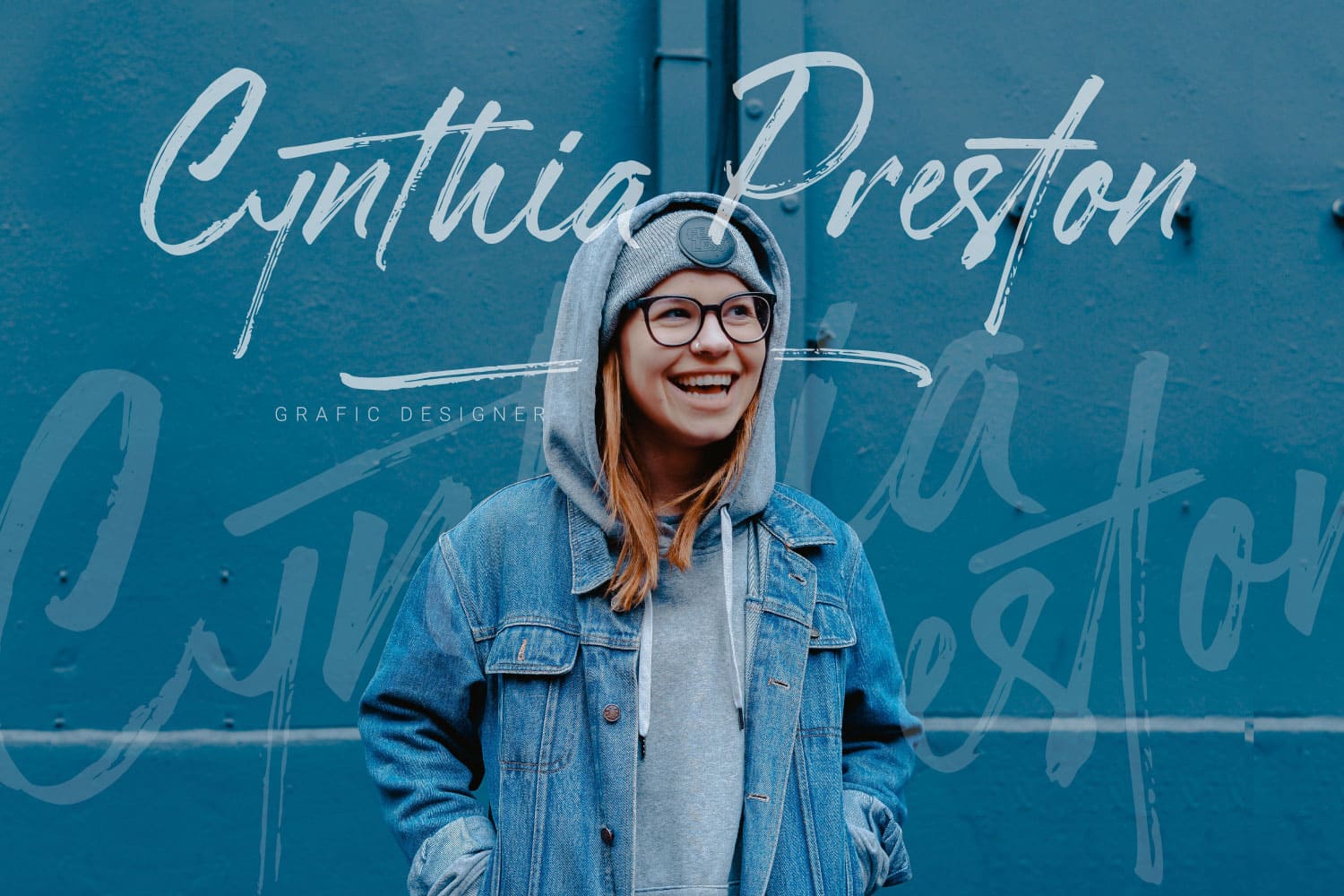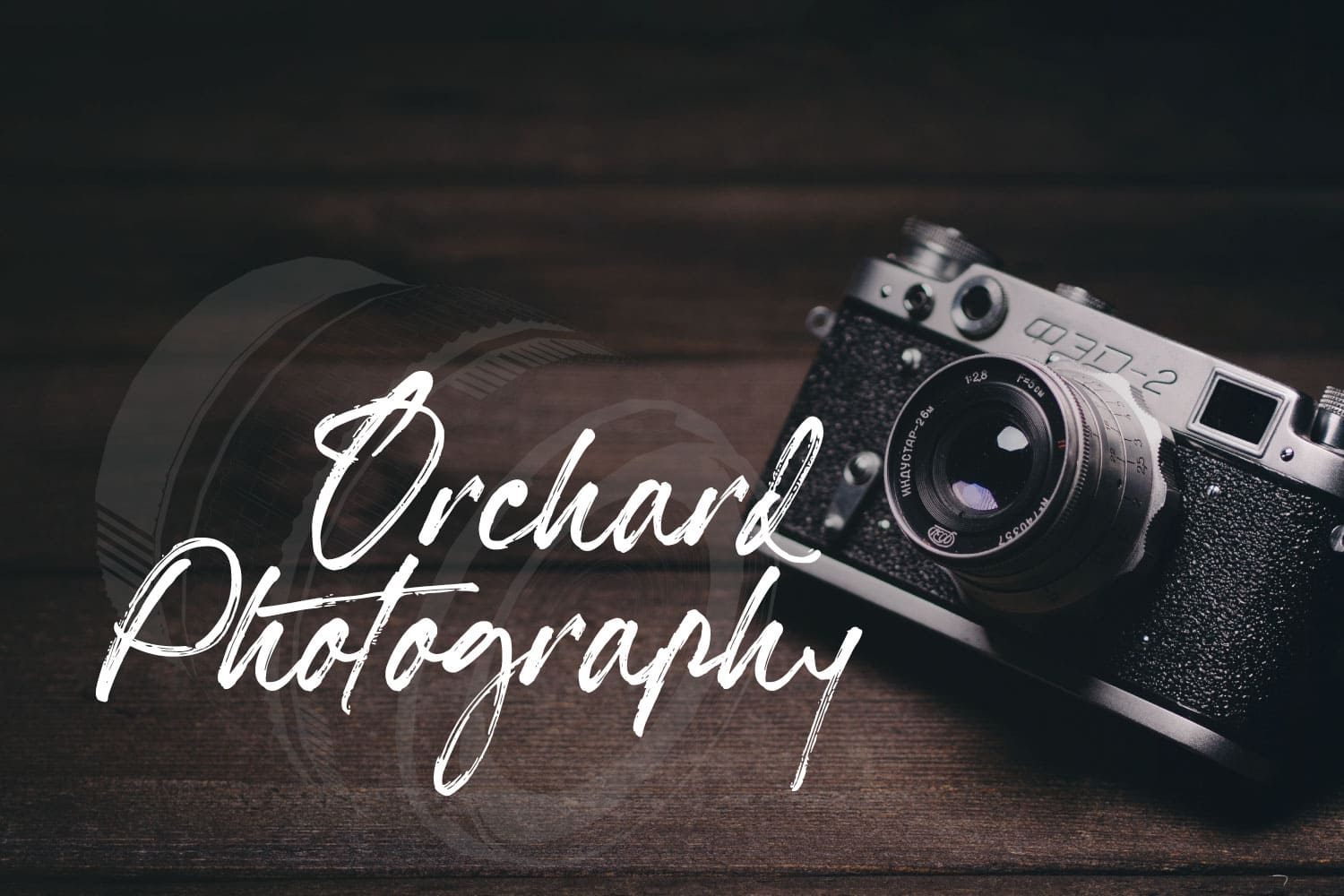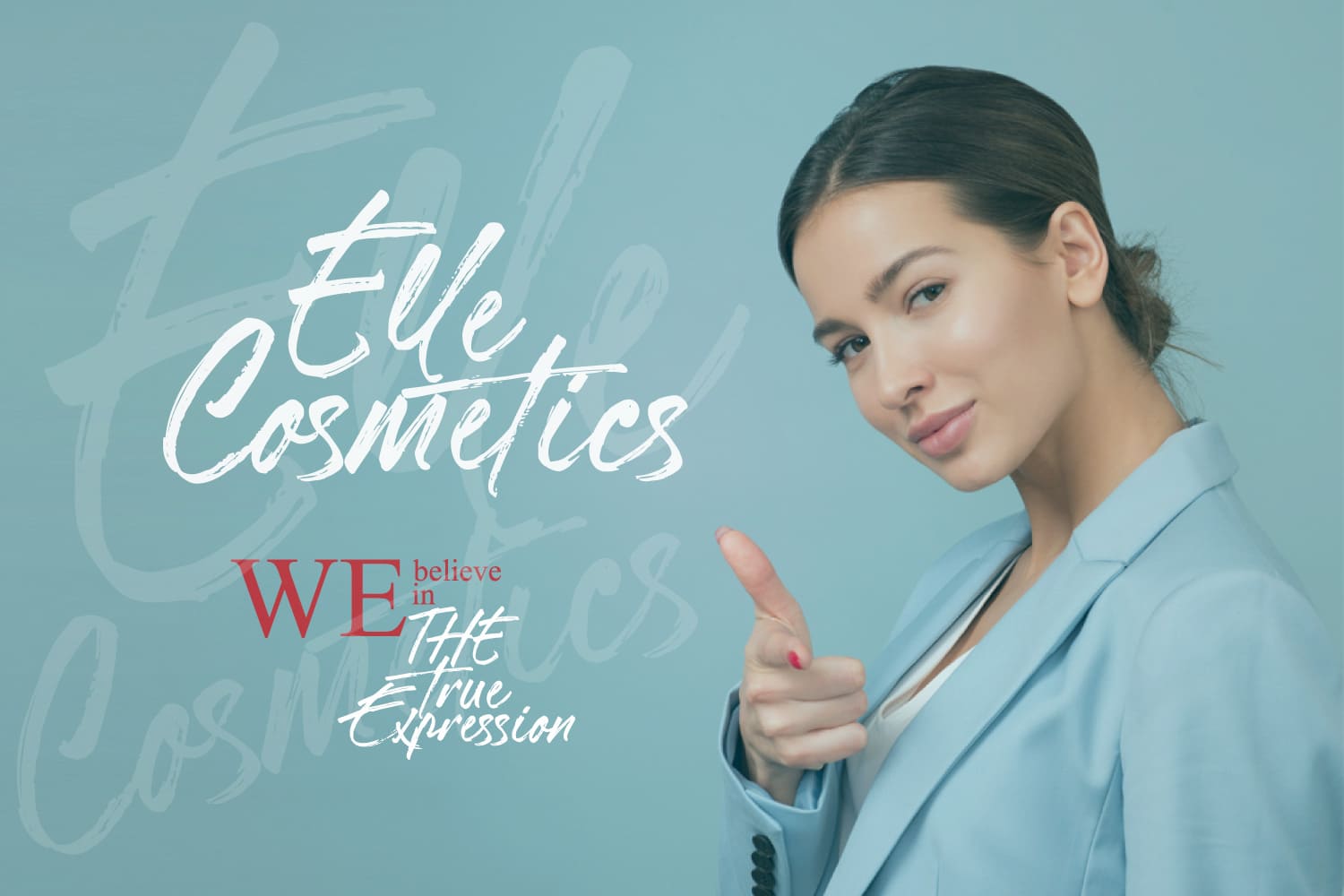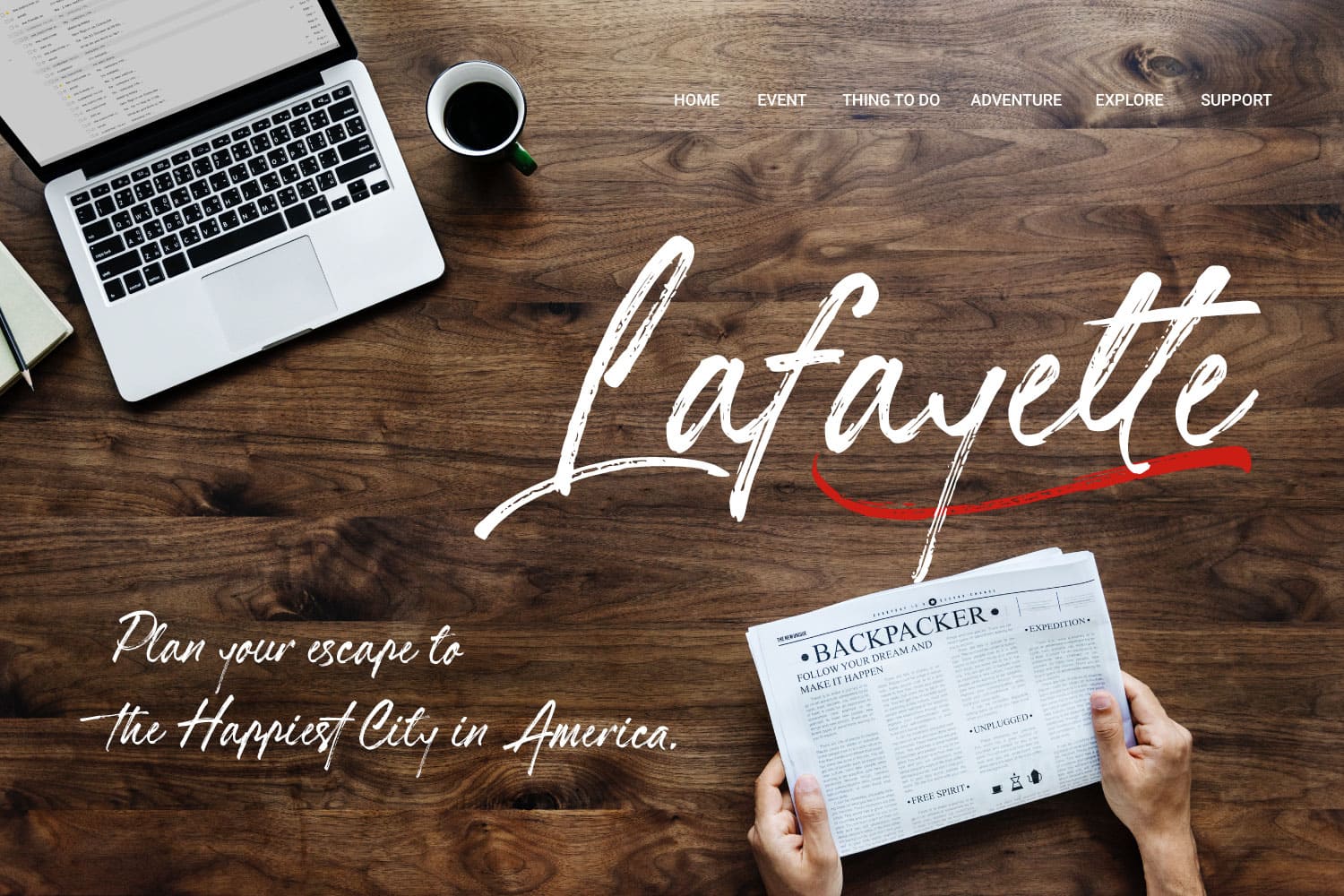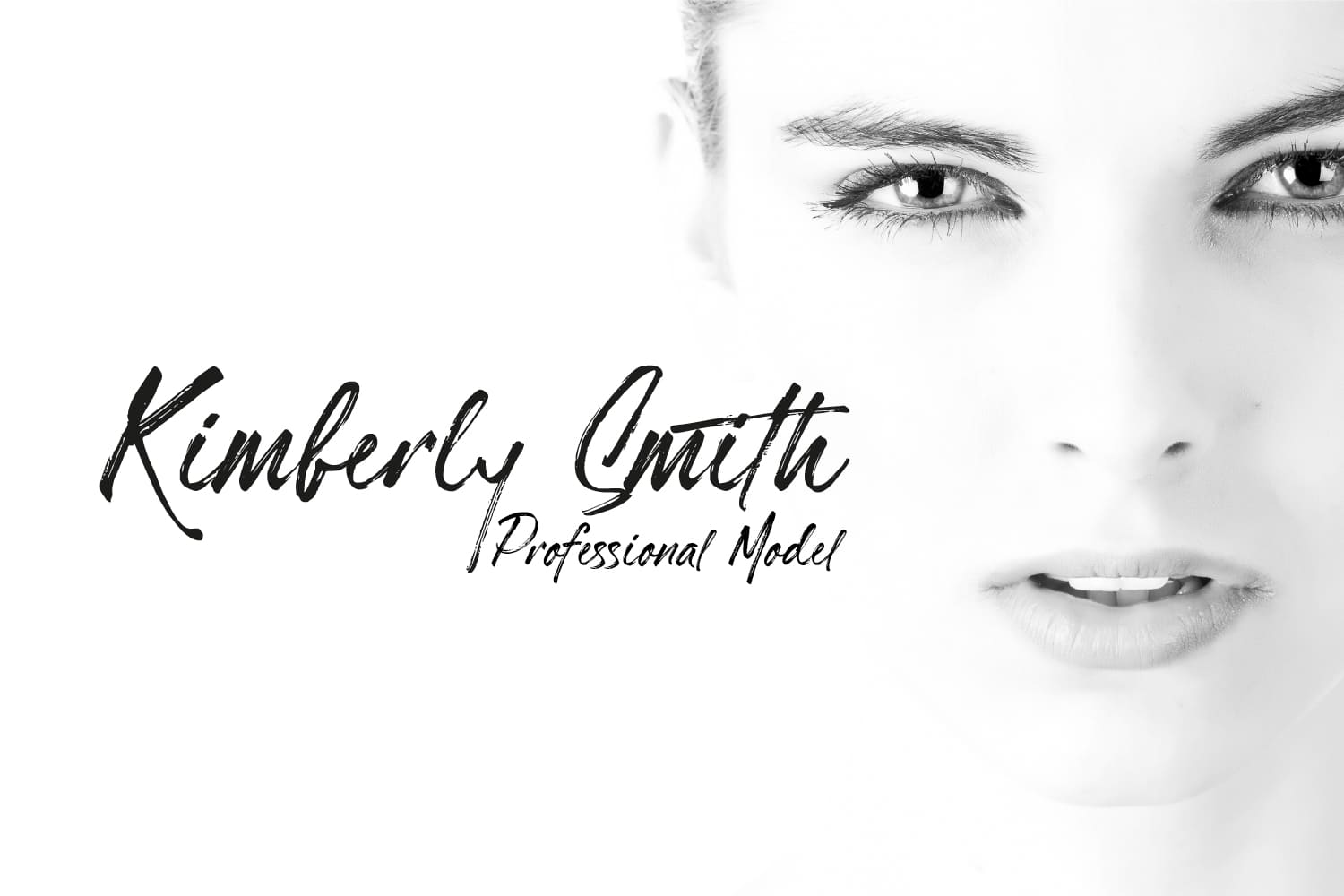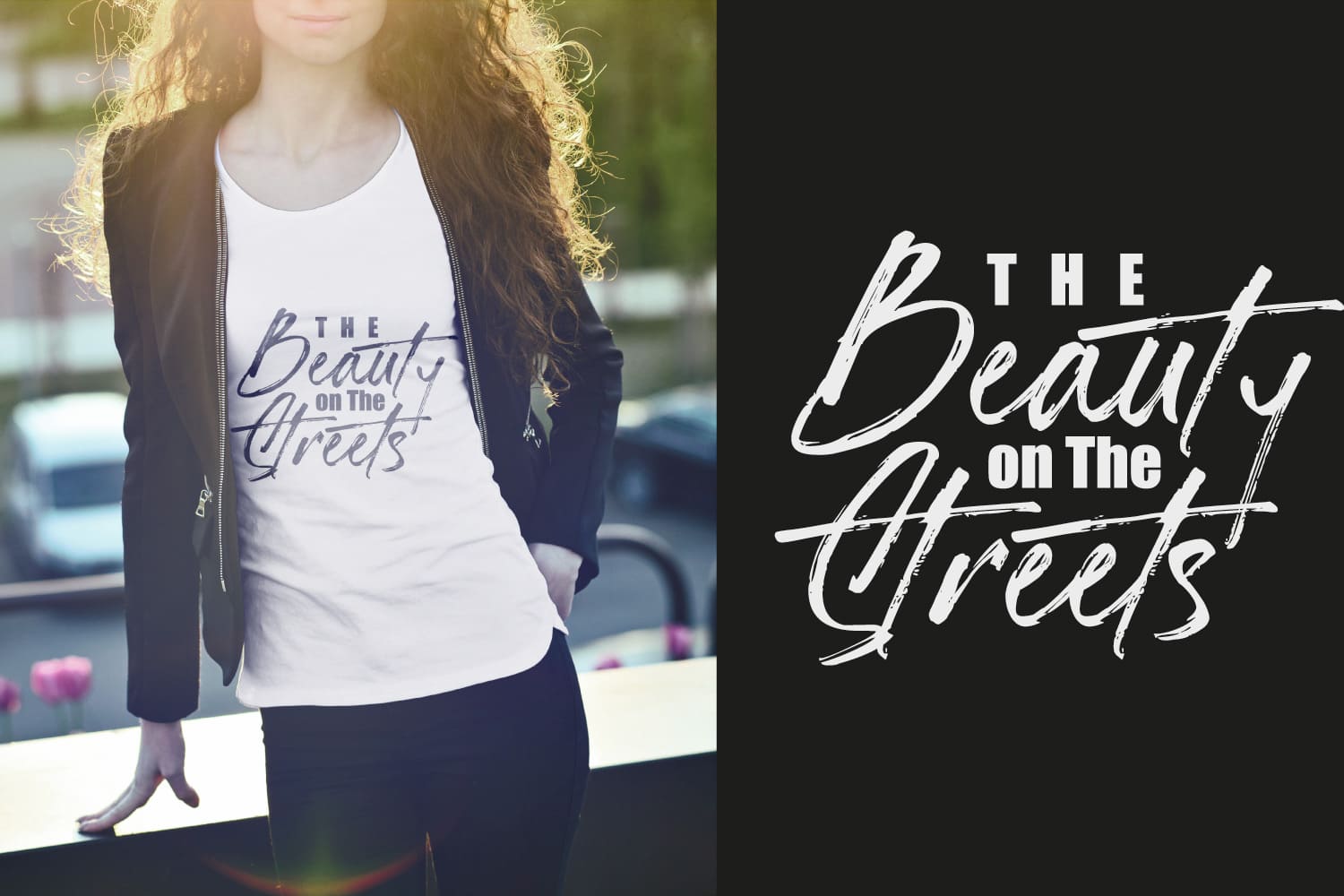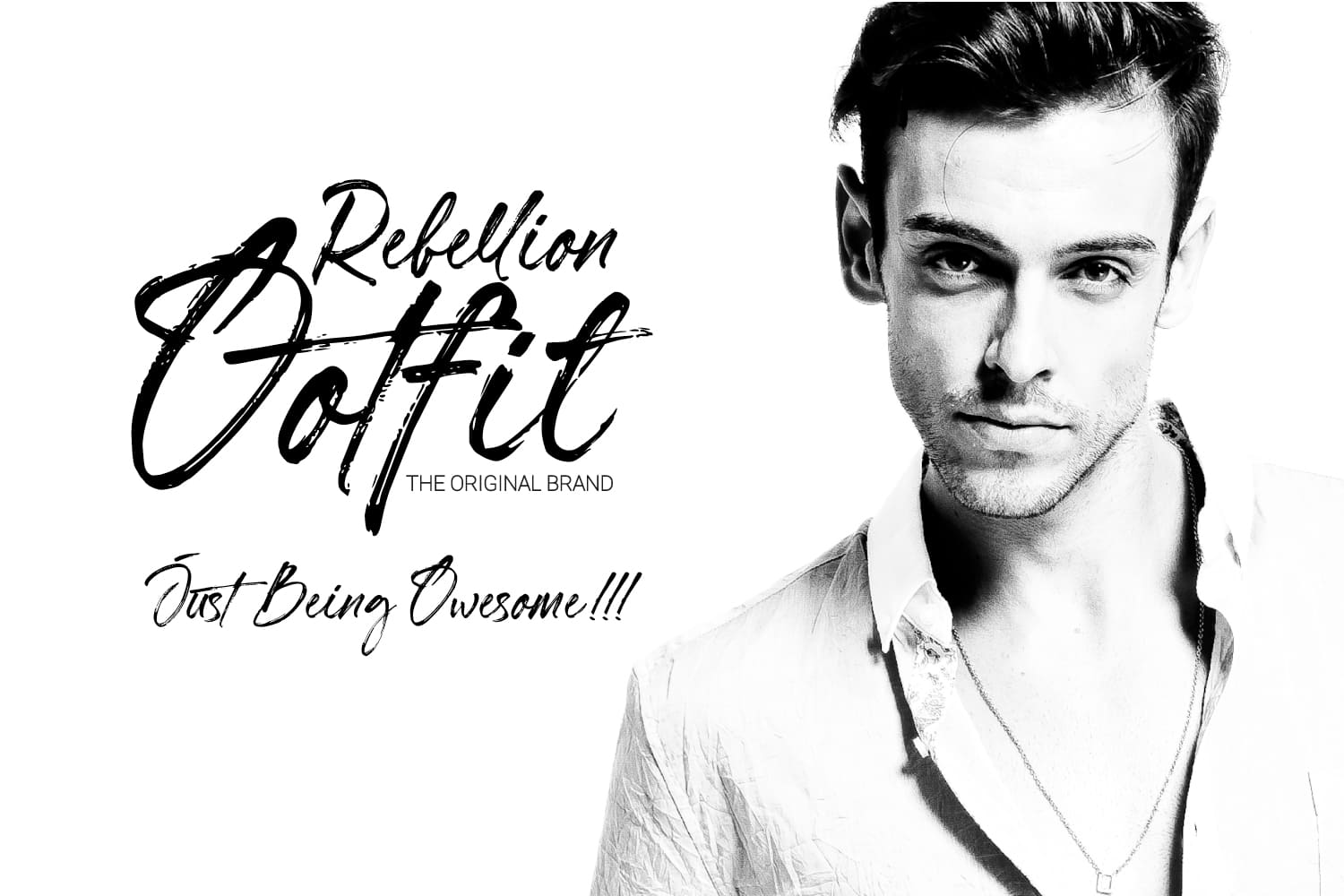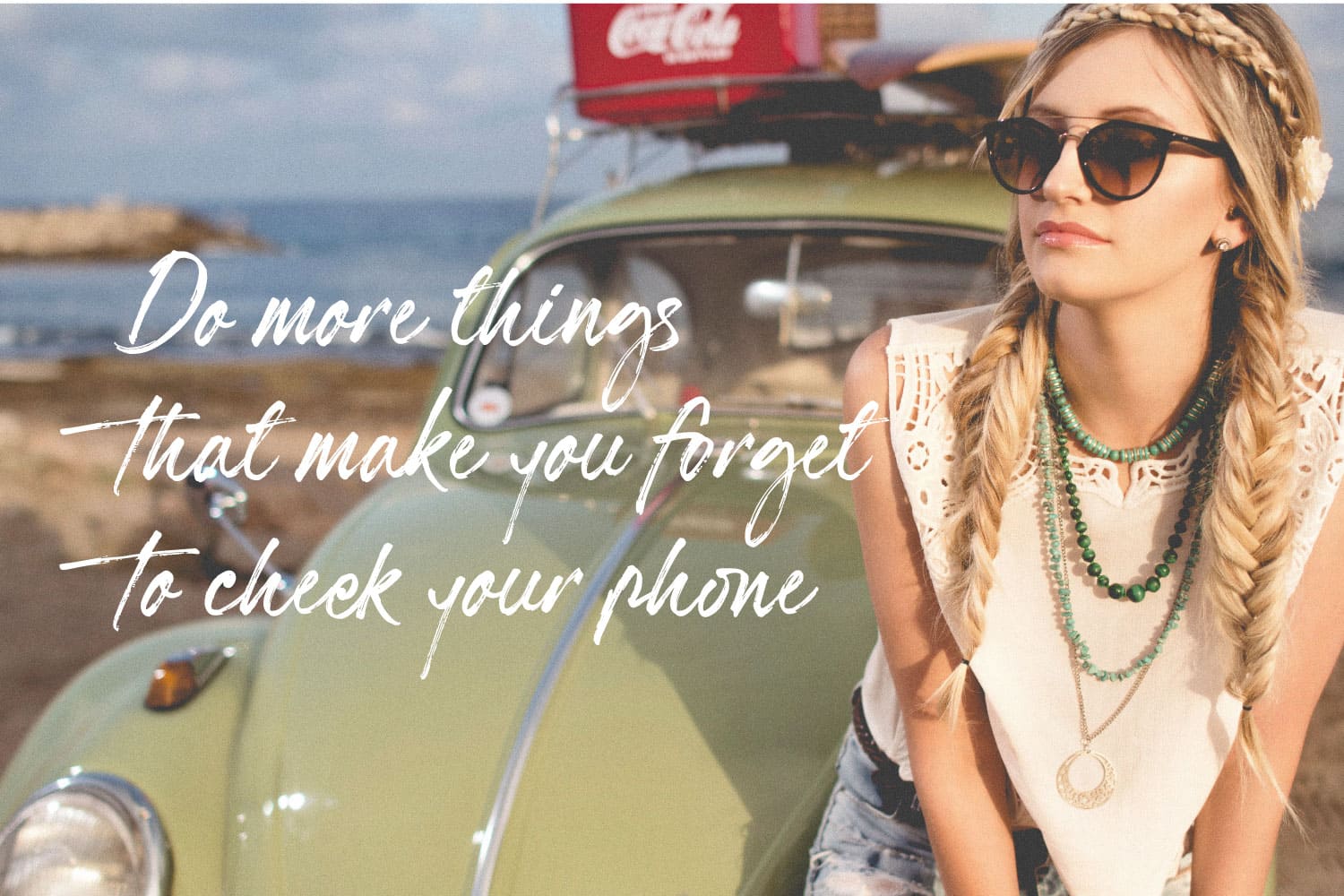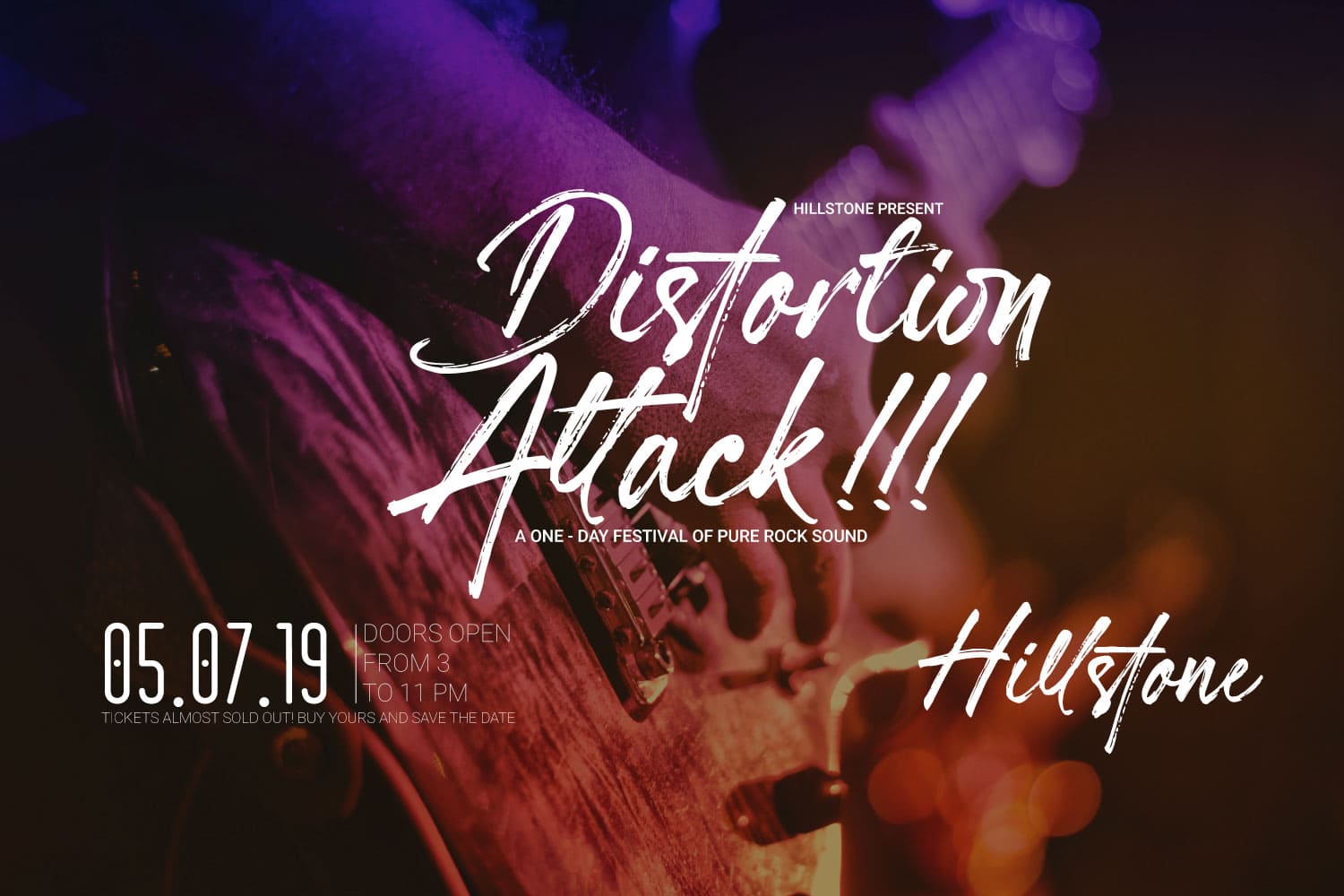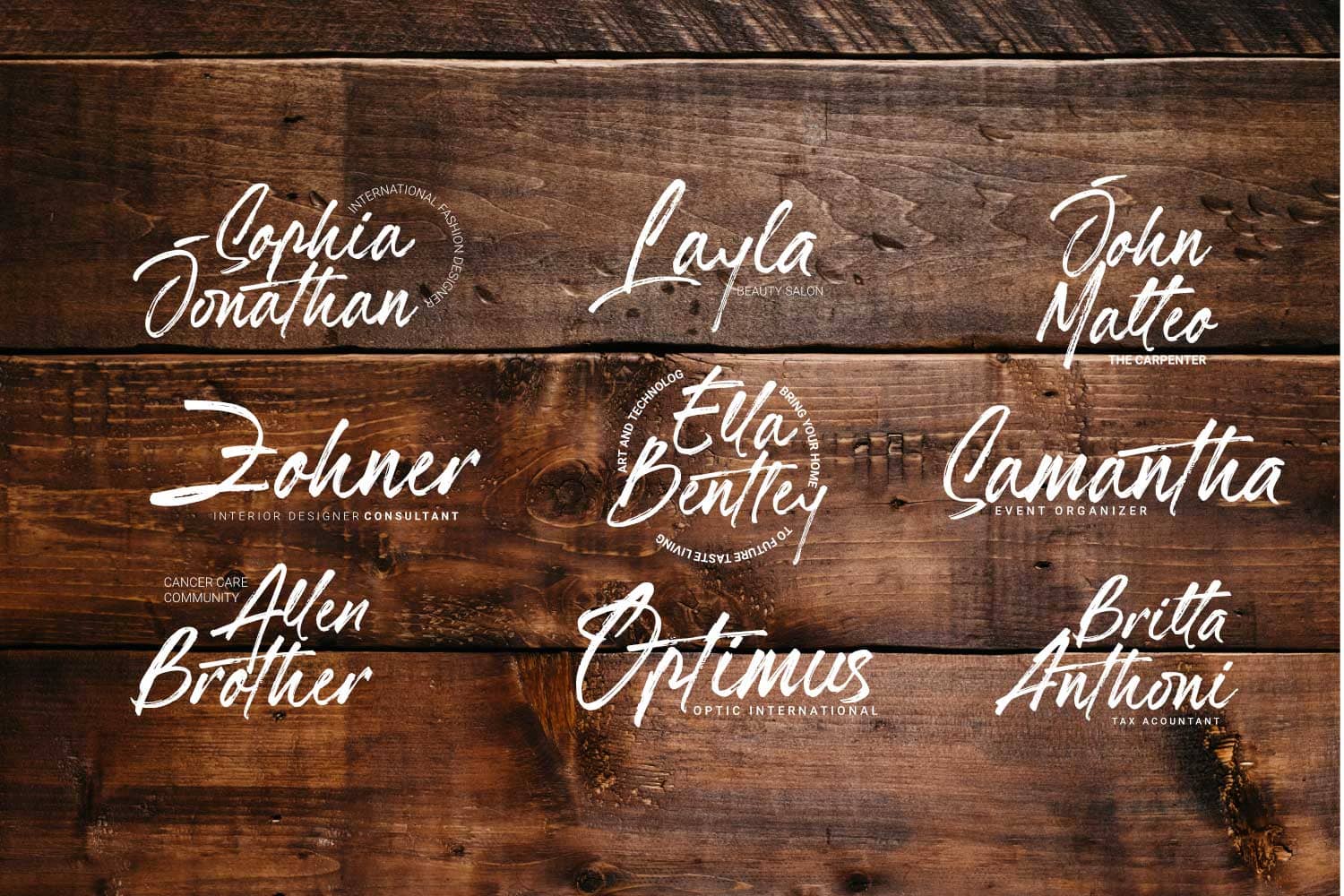
Hillstone Family (2 fonts)
From 38.Lineart
This font can be used in many design projects such as branding, logos, books, magazine covers, and many other endless possibilities!
Anything made with this font will definitely be wrapped in a very contemporary and elegant style!